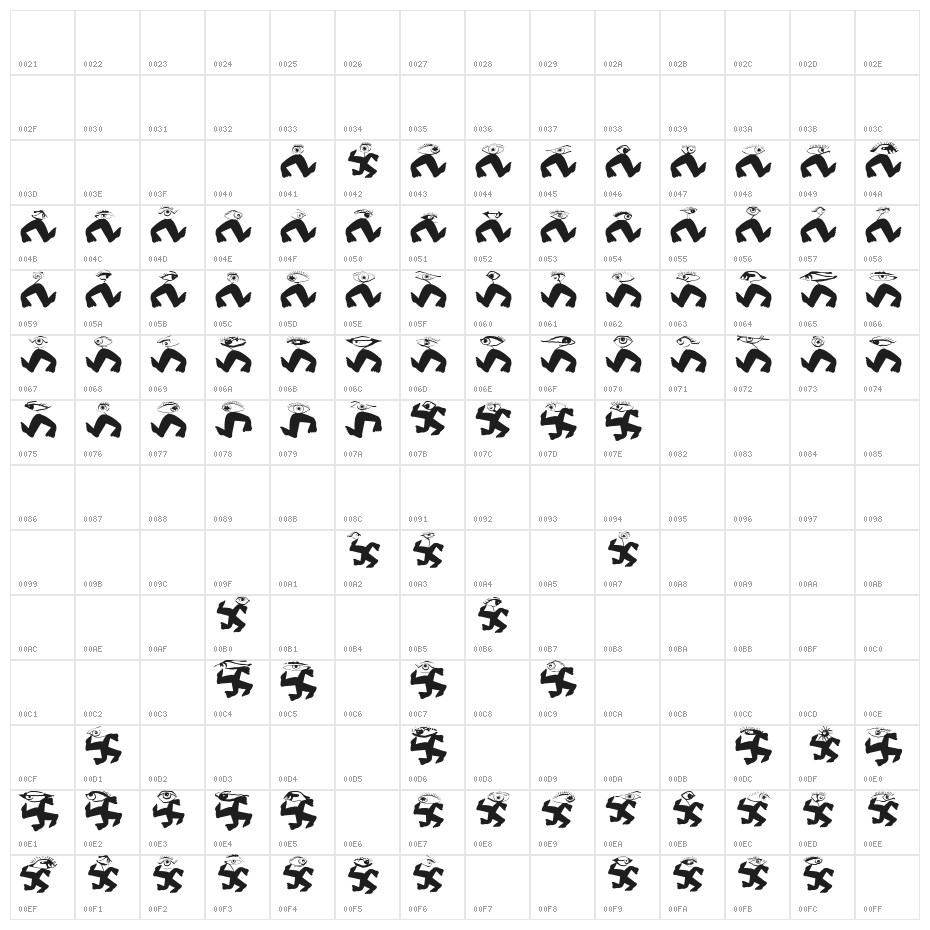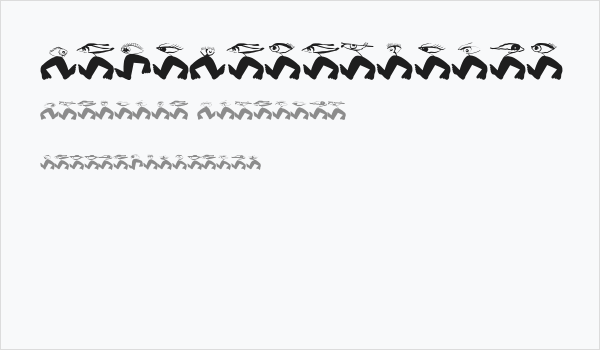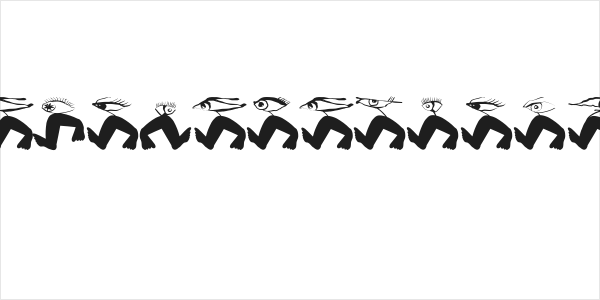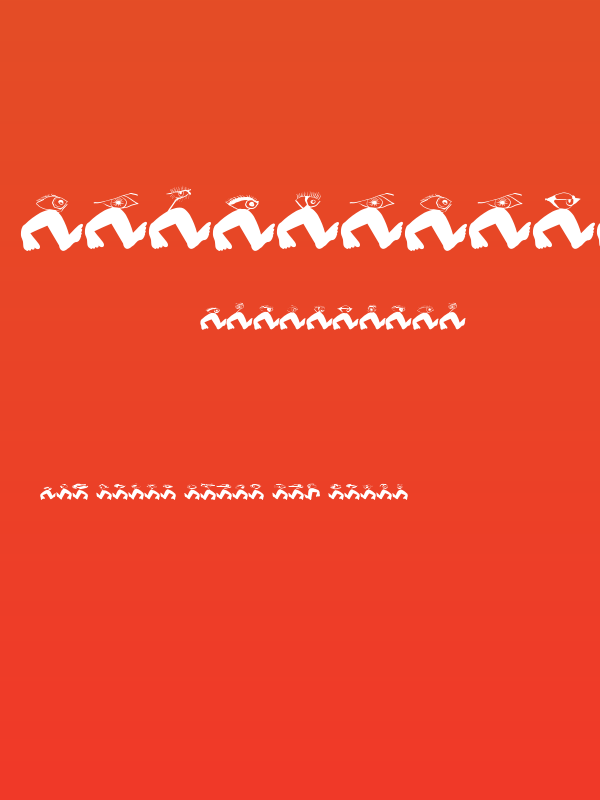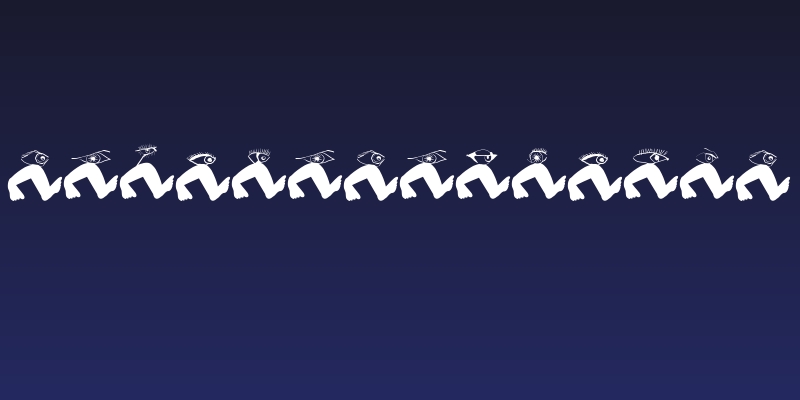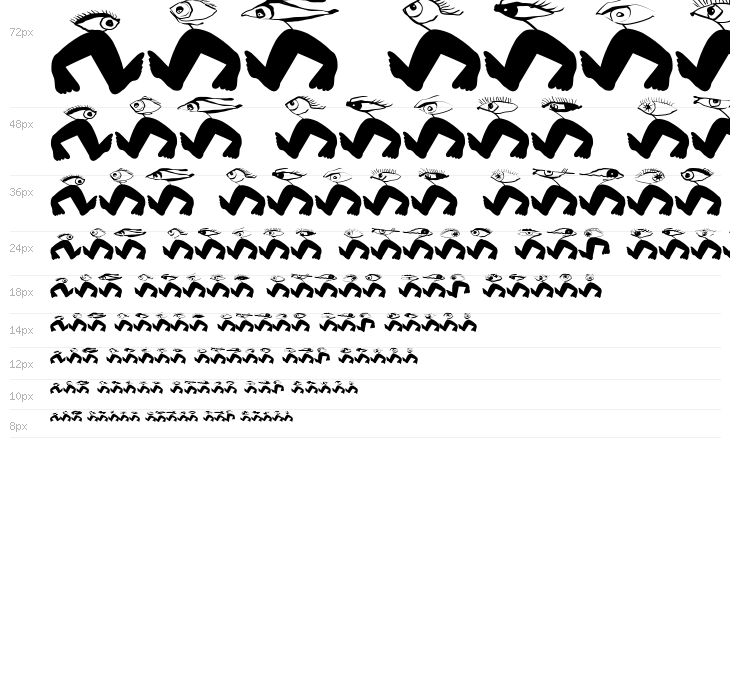
NextGeneration Font
NextGeneration Description
This font features a highly creative and whimsical design, where each character is represented by a stylized figure with unique facial expressions and poses. The characters are bold and cartoonish, with exaggerated limbs and playful details that give them a lively and dynamic appearance. The font is highly decorative, making it suitable for projects that require a fun and engaging visual element. The consistent use of thick strokes and bold lines ensures that each character stands out distinctly, while the varied expressions add a layer of personality and charm.